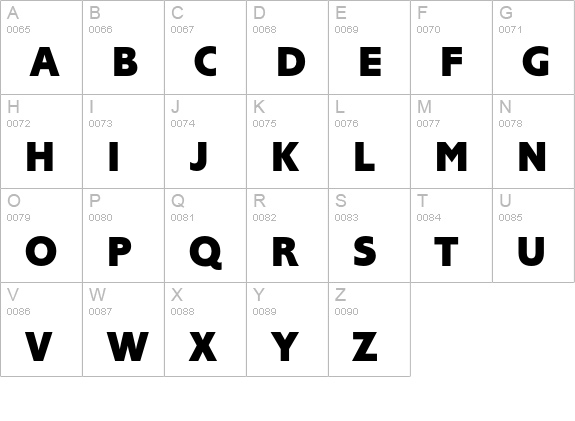
Introducing the stunning Patras font, a versatile and elegant typeface that is sure to captivate and inspire. With its clean lines and sophisticated design, Patras is the perfect choice for a wide range of projects, from branding and logo design to editorial layouts and signage. What sets Patras apart is not only its timeless beauty but also its availability as a free download. Yes, you read that right – Patras is freely available to download at FontsMarket.com. This means that designers, artists, and enthusiasts alike can access this remarkable font without any cost or restrictions. Whether you're a seasoned professional or just starting out on your creative journey, Patras offers endless possibilities. Its legibility and versatility make it suitable for both print and digital applications, ensuring that your message will be delivered with utmost clarity and impact. Crafted with meticulous attention to detail, Patras boasts a wide range of weights and styles, allowing you to experiment and find the perfect fit for your project. From the sleek and modern Light to the bold and powerful Black, each variation of Patras showcases its own unique personality, adding depth and character to your designs. But it's not just about the aesthetics – Patras is also designed with functionality in mind. Its well-balanced letterforms ensure optimal readability, while its extensive glyph set provides support for multiple languages and typographic needs. This means that you can confidently use Patras in projects that require a global reach, without worrying about compromising on quality or precision. Whether you're working on a branding project, a magazine layout, or a website design, Patras is here to elevate your work and make a lasting impression. So why wait? Take advantage of the opportunity to freely download Patras at FontsMarket.com and unlock a world of creative possibilities. Embrace this exquisite font and let it become an integral part of your design arsenal.